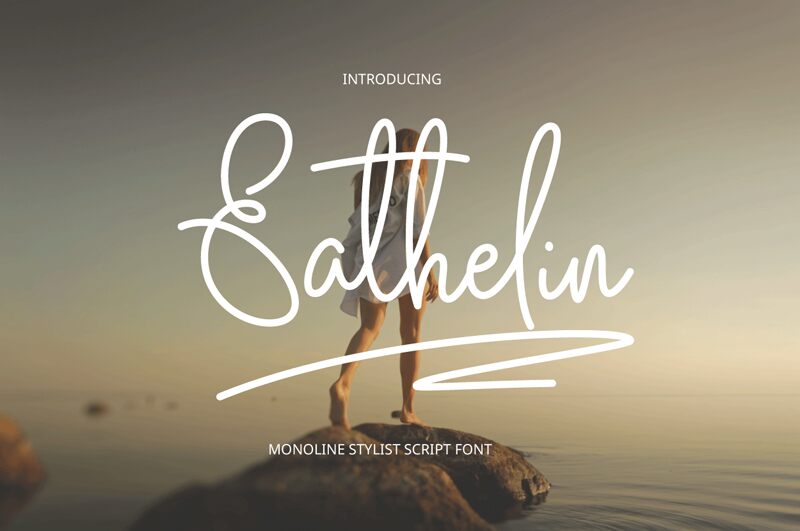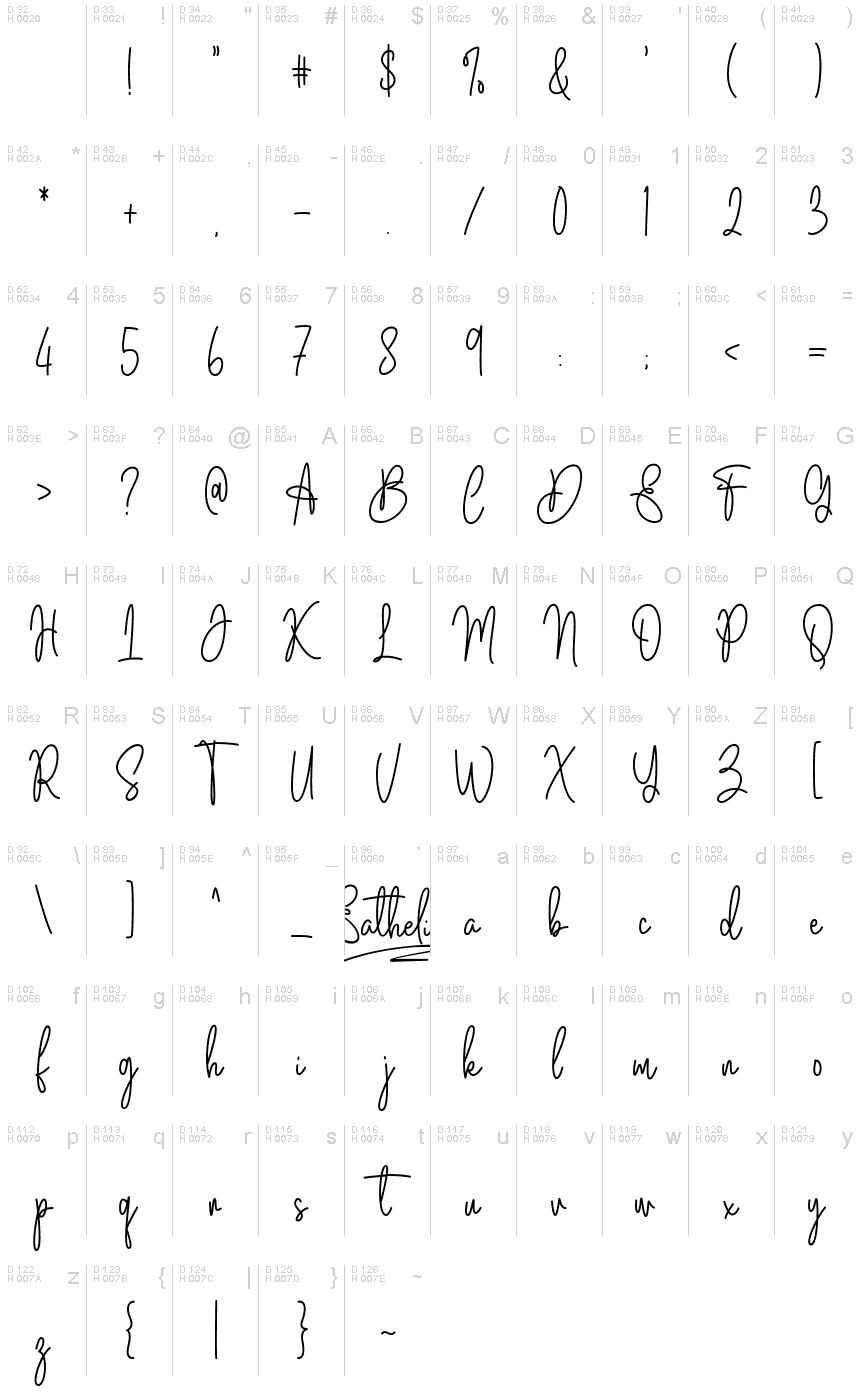
Eatheline Demo
Eatheline, the latest creation from Letter Art Studio, is a stunning handwritten font that brings elegance and sophistication to any project. With its delicate lines and light weight, this typeface is perfect for invitations, greeting cards, and other personal correspondence. But don't let its dainty appearance fool you – Eatheline also works wonders for branding materials like logos and business cards. And with its easy-to-read style, it's ideal for use in web design or social media graphics too. Whether you're looking to add a touch of refinement to your wedding invitations or elevate your brand identity, Eatheline is the perfect font choice.